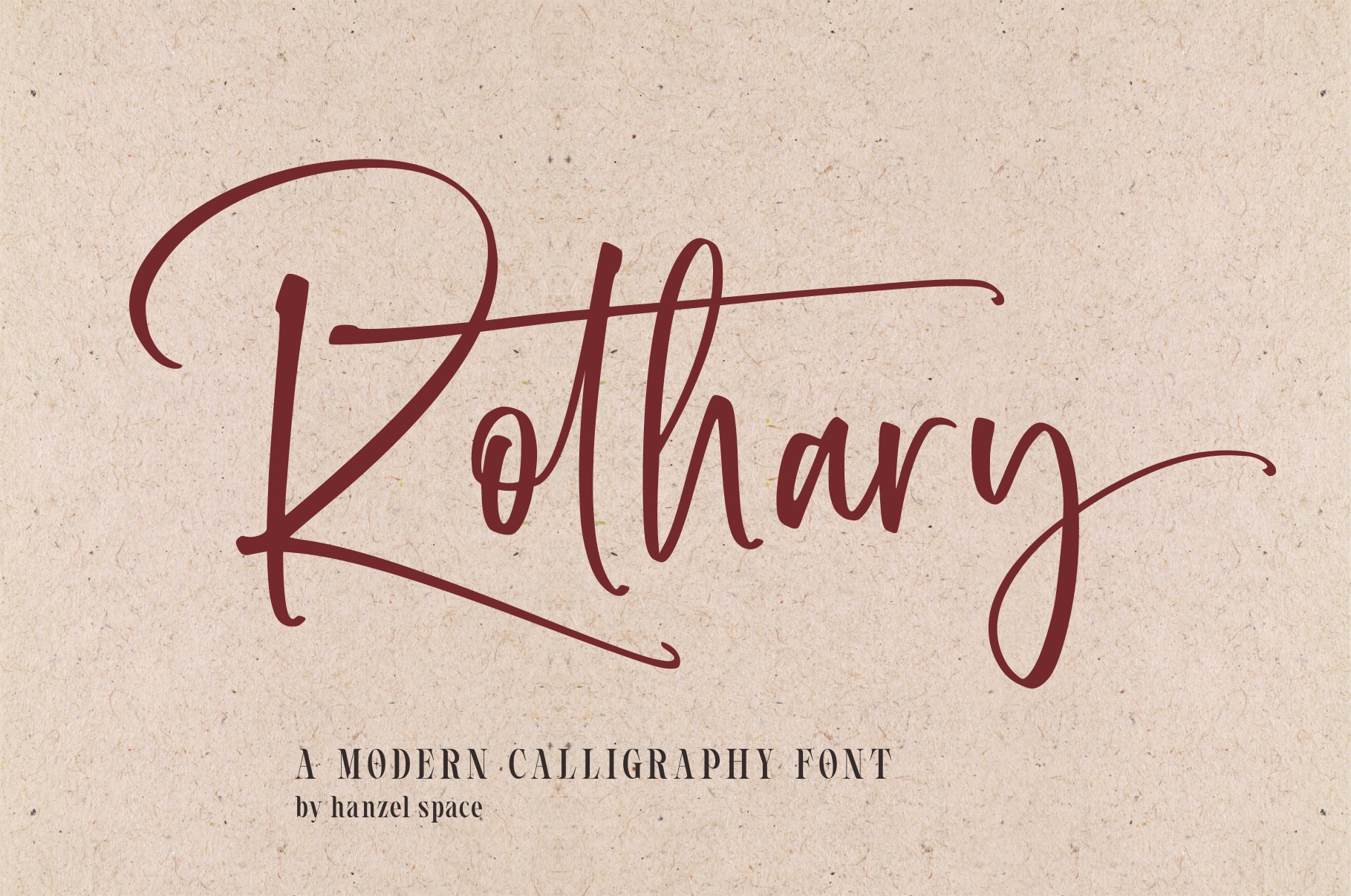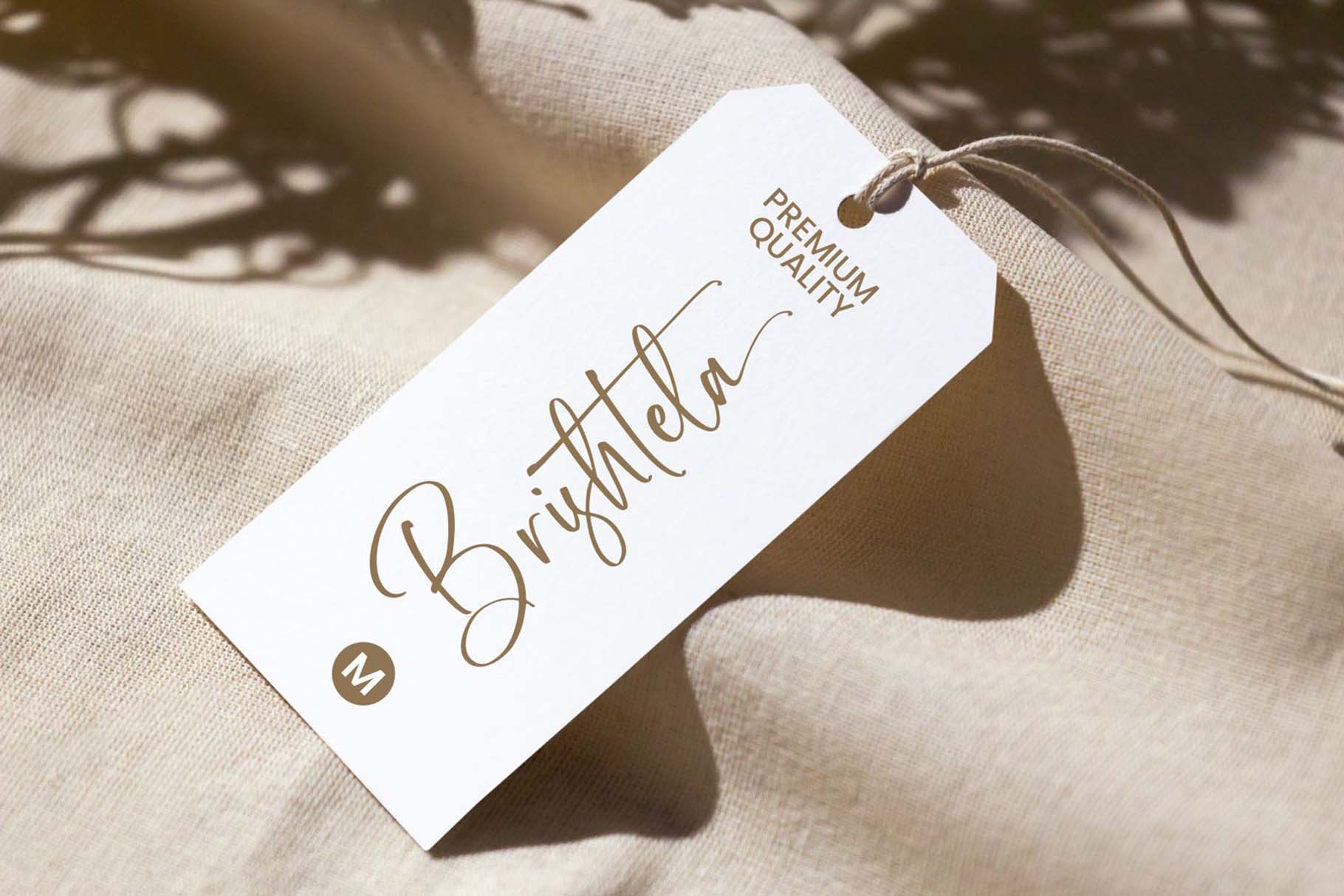
Rothary Display Font is a superb handwritten font that will make your work stand out through its elegant and curvy lines. It is perfect for product packaging, branding project, magazine covers, social media, wedding, or just used to express words above the background. This font is PUA encoded which means you can access all of the glyphs and swashes with ease.
Introducing Rothary Script Font
Rothary Script Handwritten Font with contemporary, sophisticated accents. It is perfect for branding, wedding invites, tagline, cards, maybe for label and logo.
Rothary includes full set of gorgeous uppercase and lowercase letters, numerals, a large range of punctuation and ligatures. It expresses beauty of handwriting. What you get
Standard Ligatures
Numerals and Punctuation